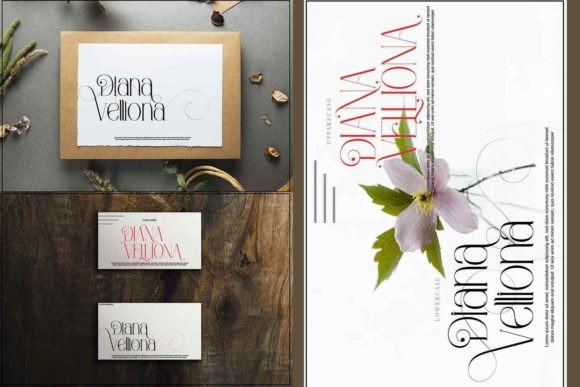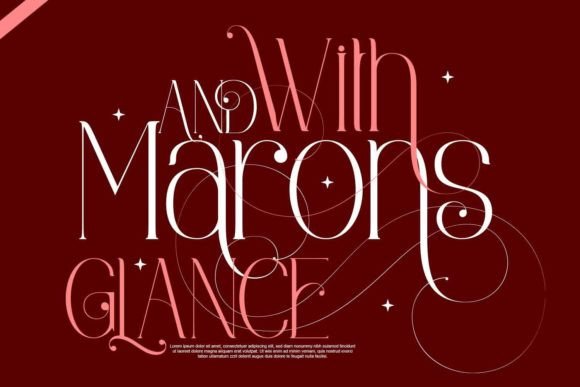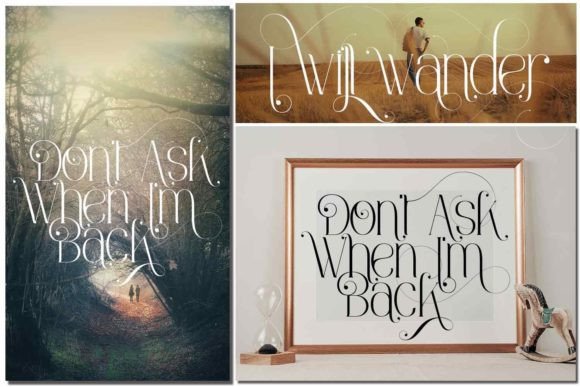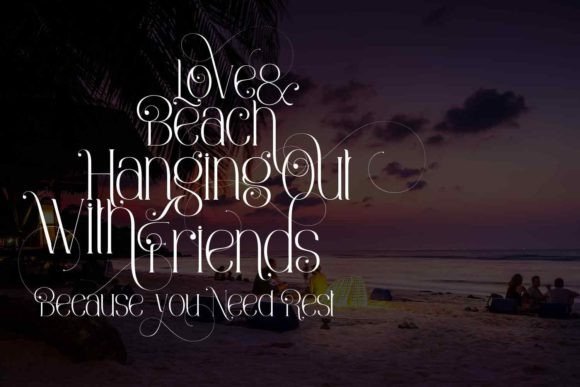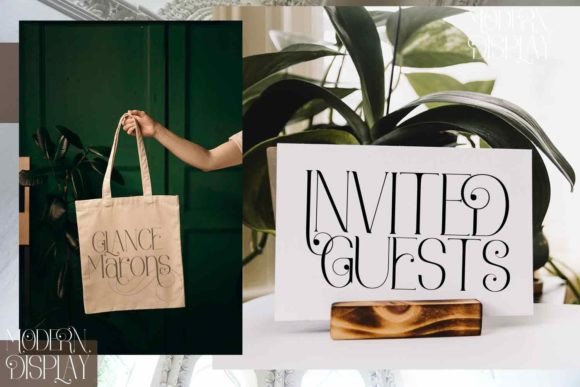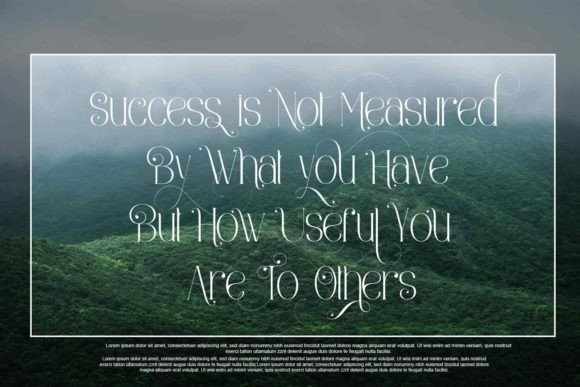
Introduction to Marons and Glance Font
Marons and Glance is a luxurious serif font.
Its stylish and chic appearance makes it suitable for a wide range of fashionable and elegant designs Add it confidently to your projects and you will be amazed by the outcome generated.
Key Features of Marons and Glance Font
Why Choose Marons and Glance Font?
Marons and Glance Font offers exceptional quality and versatility, making it a valuable addition to your design toolkit. Whether you’re creating for personal projects or commercial use, Marons and Glance Font delivers professional results.